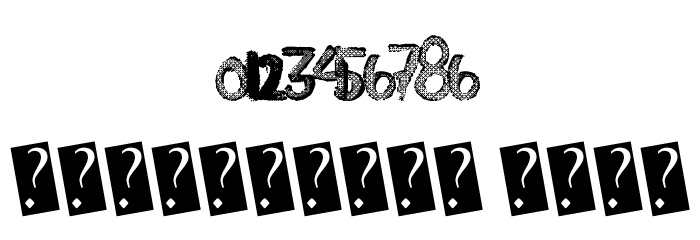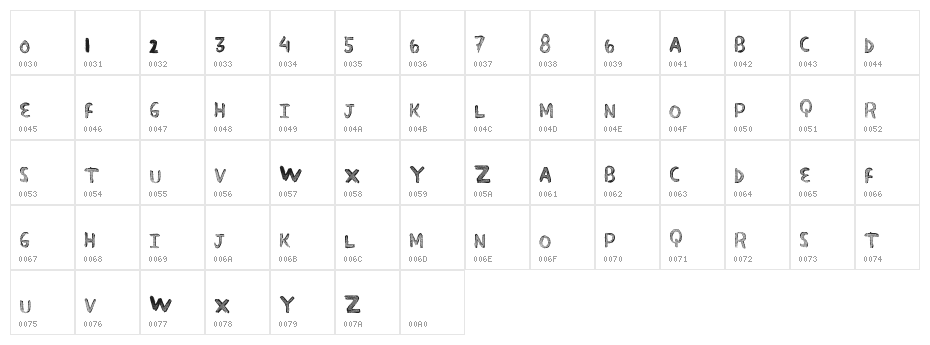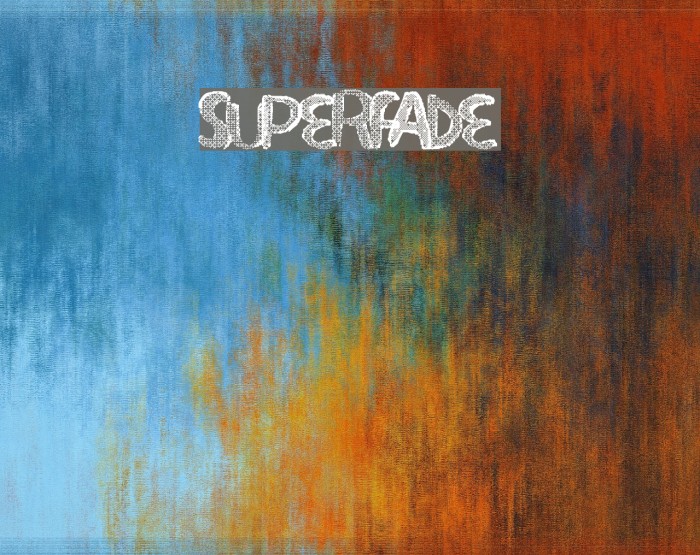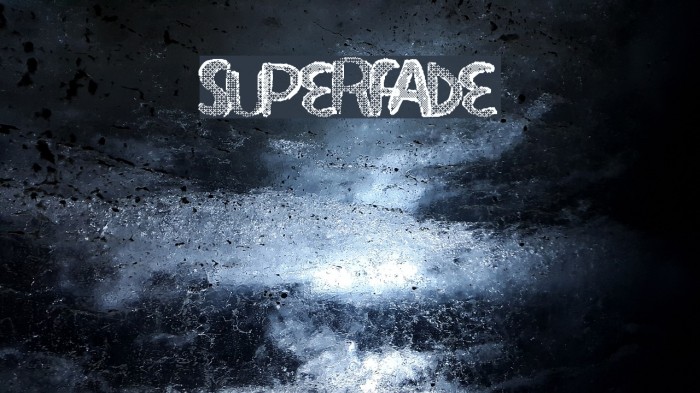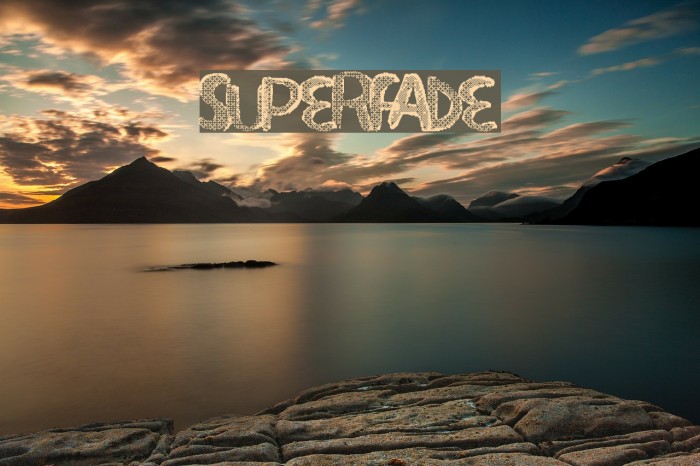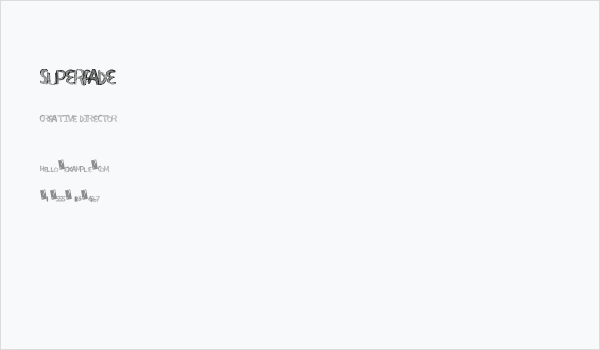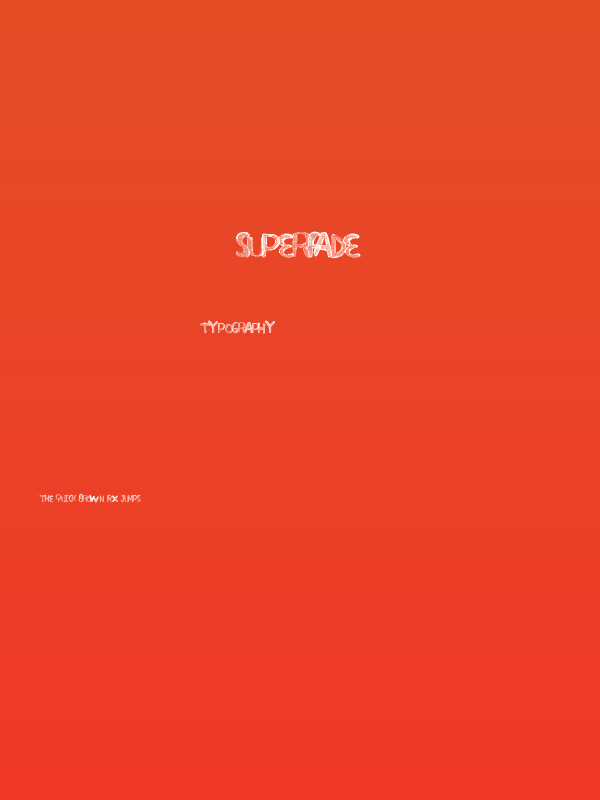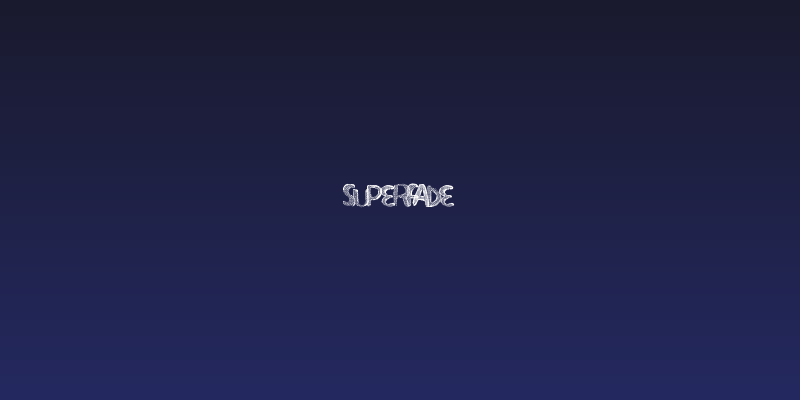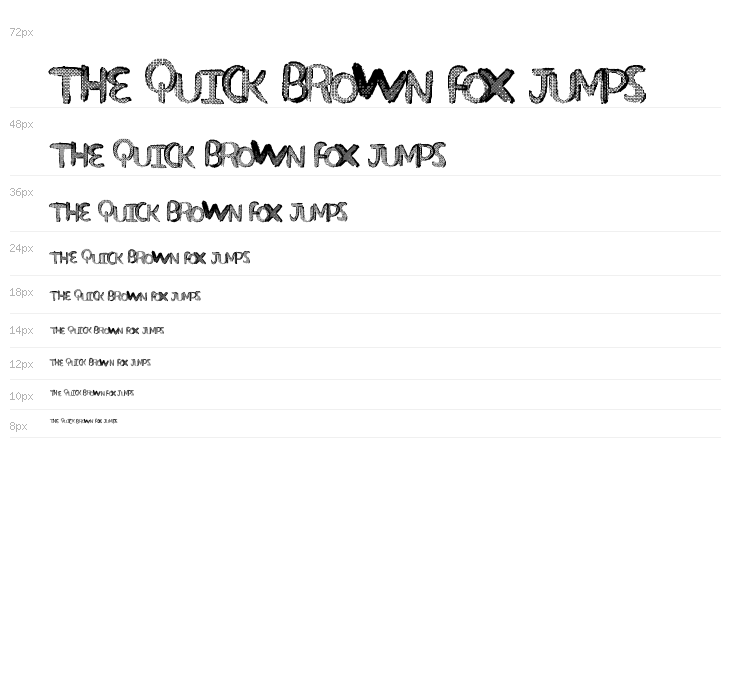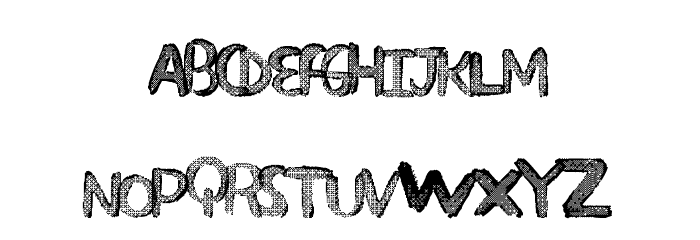
SuperFade Font
SuperFade Description
This font features a unique, distressed appearance with a fading effect that gives it a textured, worn look. The characters are bold and have a hand-drawn quality, with irregular edges that enhance its artistic style. The uppercase and lowercase letters maintain a consistent design, while the numbers and special characters follow the same aesthetic. The overall appearance is both eye-catching and distinctive, making it suitable for creative and artistic projects.